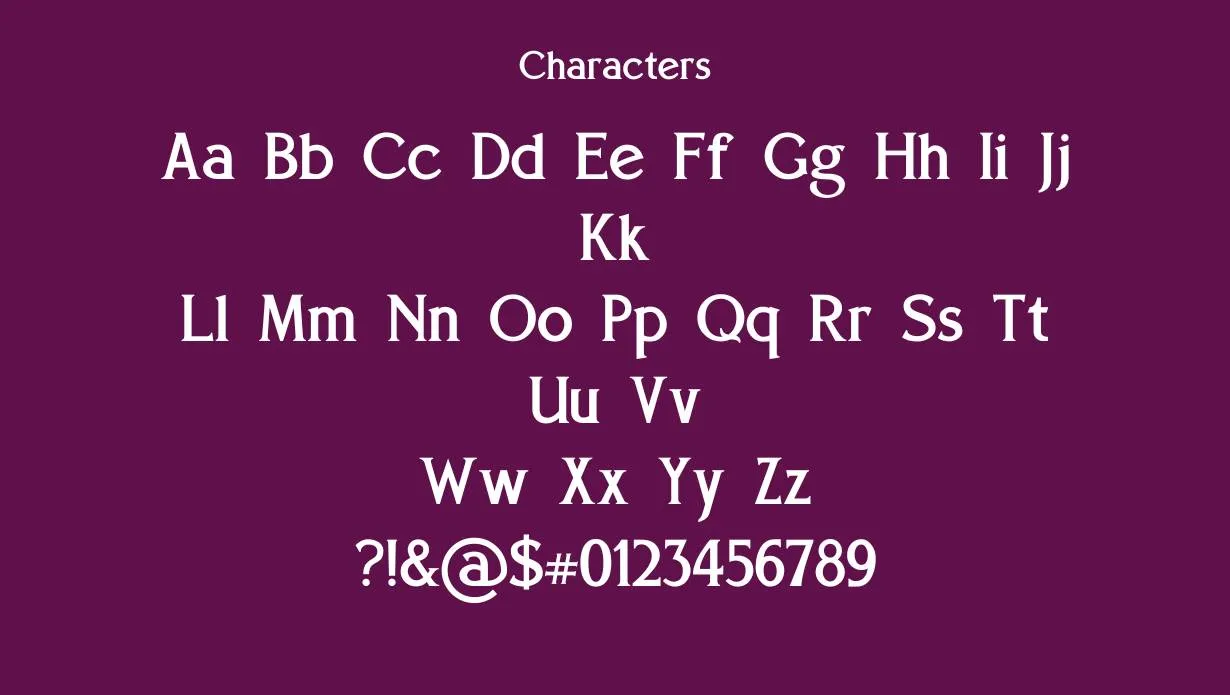
Eboracum is a stylish and modern typeface that balances sophistication with a touch of contemporary flair. Its clean lines and sleek design make it suitable for a variety of design applications.
Eboracum is often used in branding, digital interfaces, and print materials where a modern and elegant typeface is desired. Its purpose is to provide a versatile and eye-catching font that adds a touch of sophistication to text while maintaining readability in diverse design contexts.
• Eboracum regular
DesignerPilaster Davy
StyleSerif